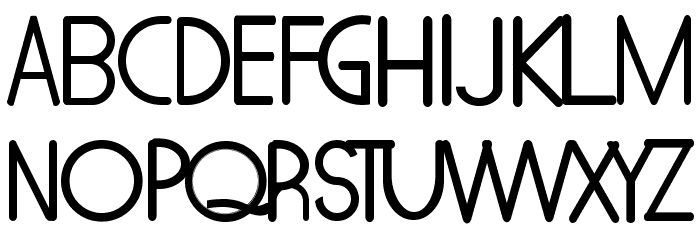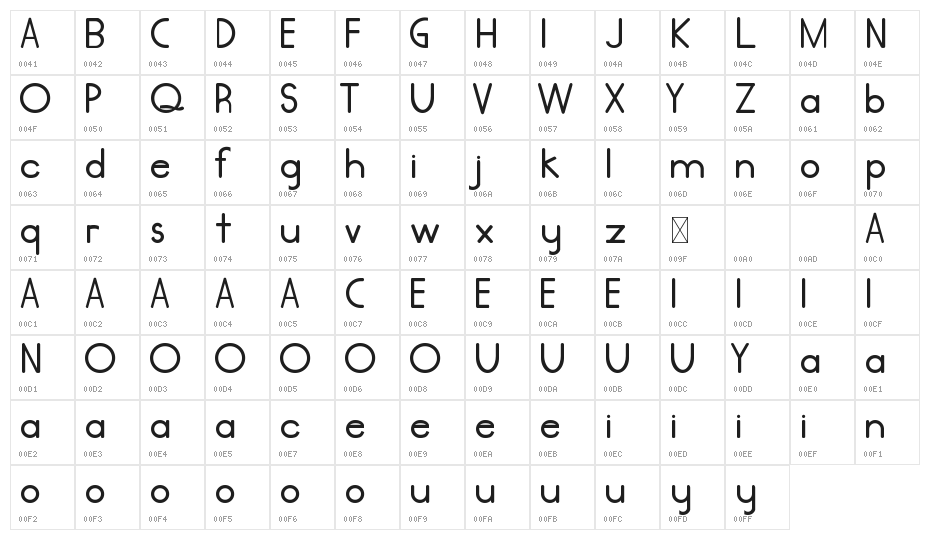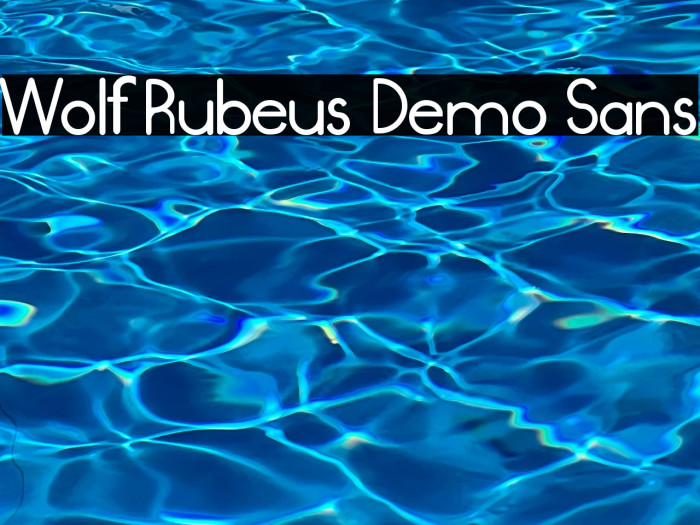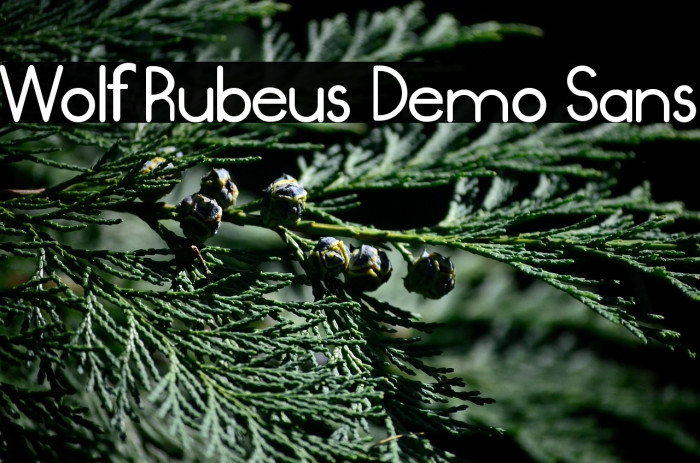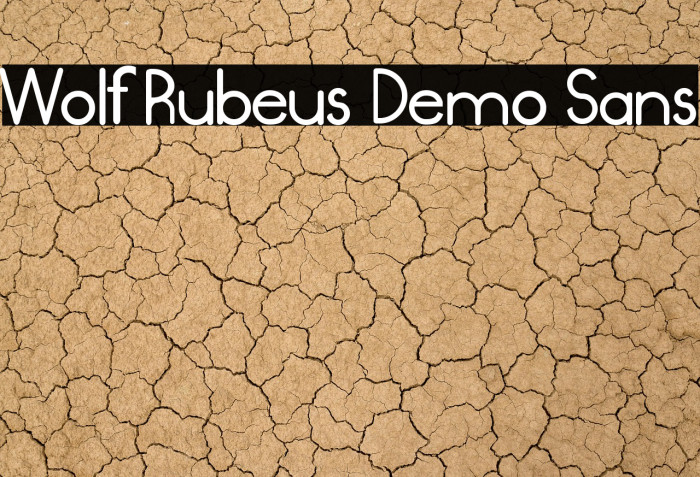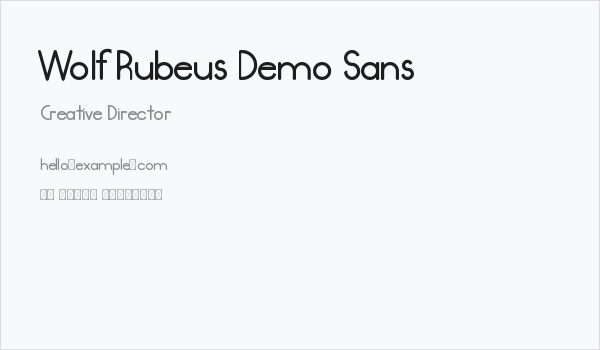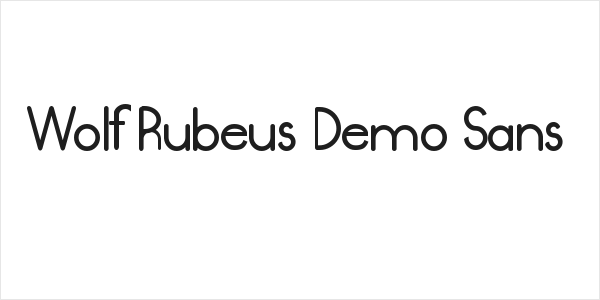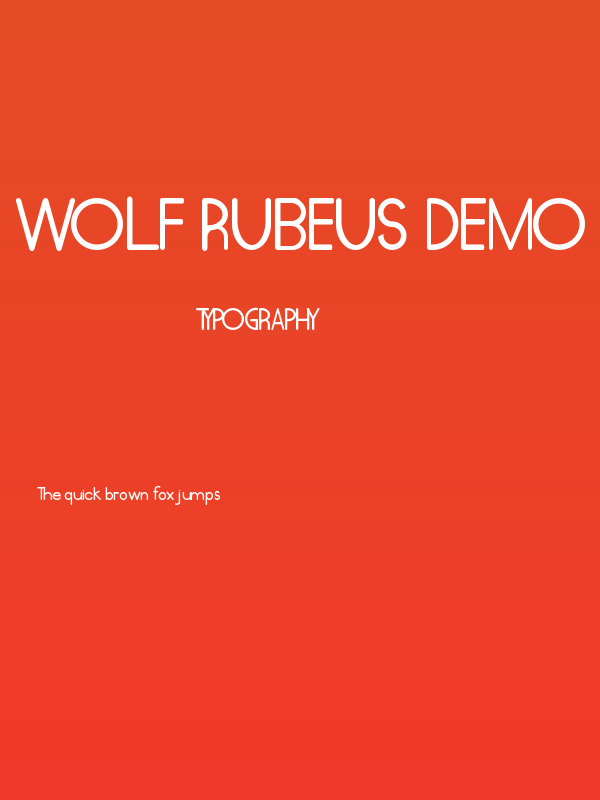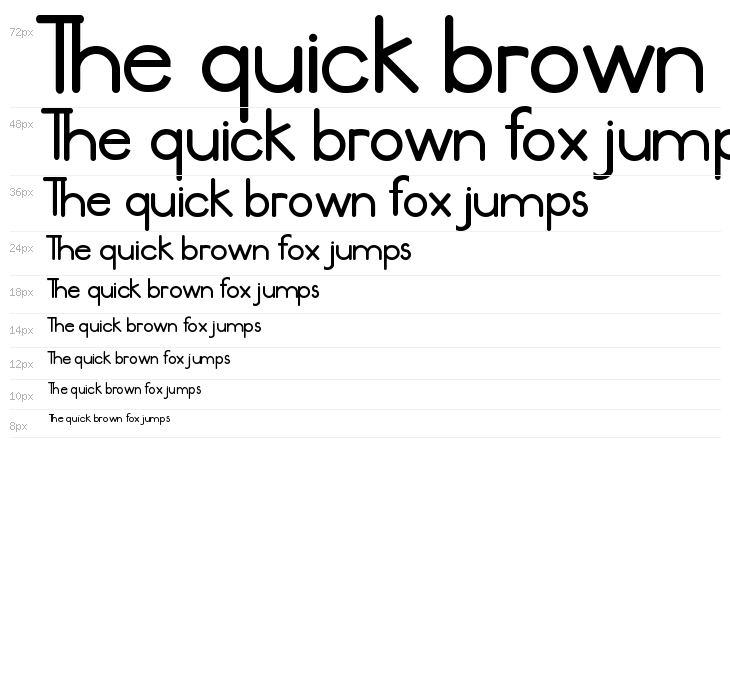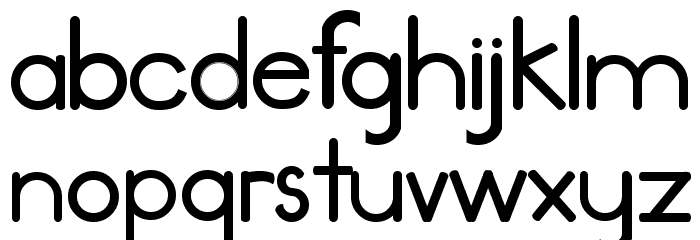
Wolf Rubeus Demo Sans Font
Wolf Rubeus Demo Sans Description
This font features a clean and modern sans-serif style with rounded edges, giving it a friendly and approachable appearance. The characters are uniform in width, contributing to a balanced and harmonious look. The uppercase and lowercase letters maintain a consistent design, with smooth curves and a geometric feel. The numerals and special characters are designed to match the overall aesthetic, ensuring versatility and readability across various applications. This font is suitable for both digital and print media, offering a contemporary yet timeless appeal.